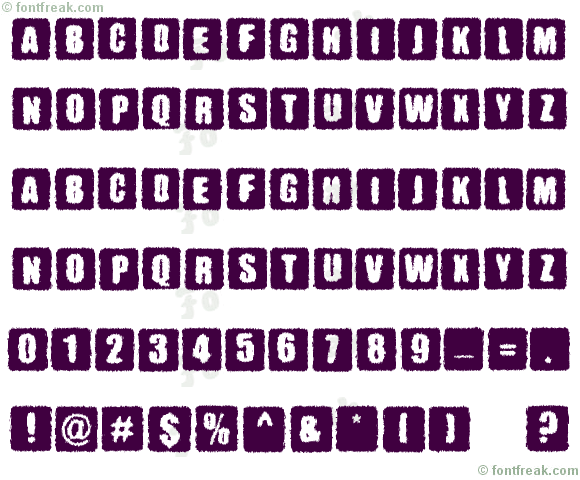
Parkinsonism
Introducing the Parkinsonism font, a unique typeface designed by woodcutter Manero, which captures an artistic blend of creativity and raw expression. This display font is characterized by its bold, textured appearance, evoking a sense of handcrafted authenticity. The stroke weight varies throughout the characters, lending a dynamic feel that is both playful and engaging. With its irregular spacing and rough edges, Parkinsonism stands out as a distinctive choice for projects that aim to convey a sense of individuality and artistic flair.
Ideal for a variety of applications, the Parkinsonism font excels in settings such as movie posters, where its eye-catching design can draw viewers in. It is also well-suited for restaurant menus that wish to convey a rustic or artisanal vibe, enhancing the overall dining experience. Additionally, this font works beautifully for graphic design projects targeting events like music festivals, where its energetic style can complement vibrant visuals. Small business owners looking to create memorable branding will find Parkinsonism particularly useful in logo designs and promotional materials. Content creators seeking to add a unique touch to their projects will appreciate its versatility across various media.
What sets the Parkinsonism font apart is its ability to blend artistry with practicality, making it a memorable choice for any creative endeavor. Its distinctive characteristics ensure that it will leave a lasting impression, inviting viewers to engage with the design on a deeper level. This font not only communicates messages effectively but also tells a story of craftsmanship and individuality.